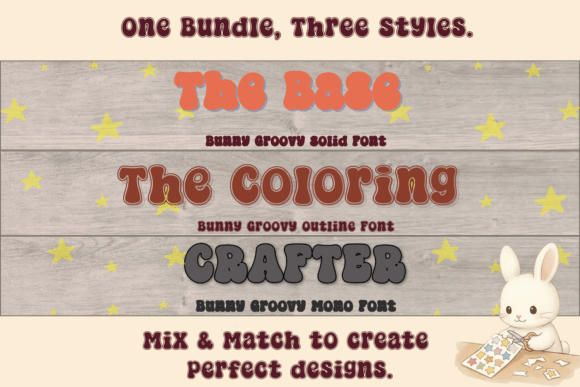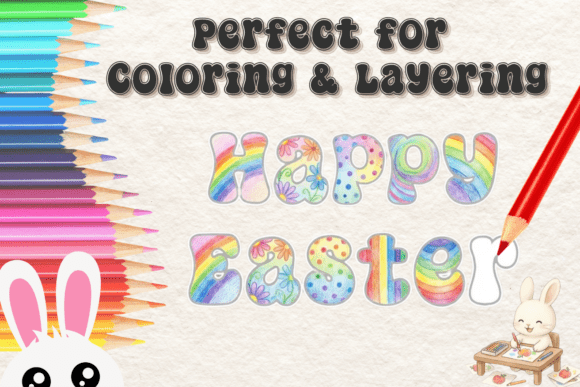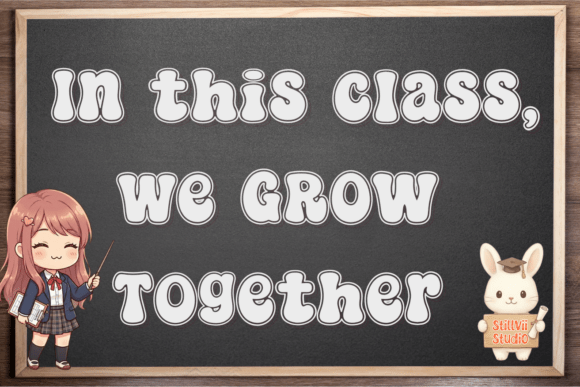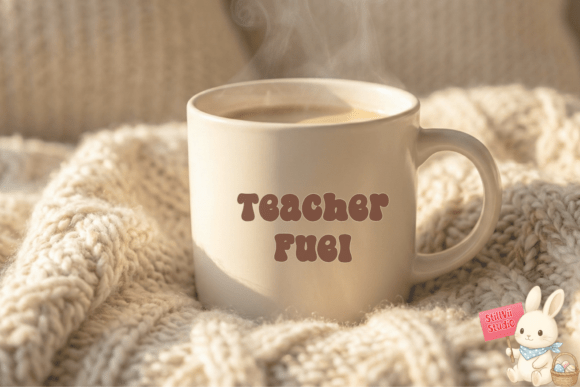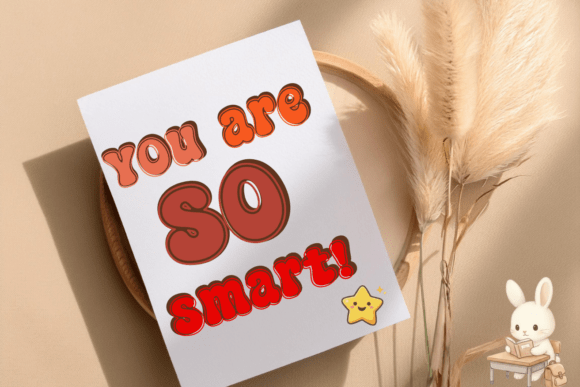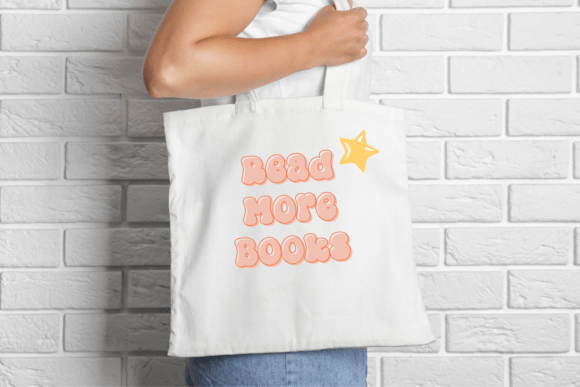
Get Ready to Groove with the Bunny Groovy Solid Trio Font
You know that moment when you’re browsing through fonts and suddenly, you stumble upon the perfect one? It’s like a creative spark hits you, and you can’t wait to start designing with it. That’s exactly what happened when I discovered the Bunny Outline Solid Trio Font – a playful, bold, and incredibly versatile typeface that’s perfect for adding a dash of retro fun to your next project.
This fantastic font bundle includes three unique styles: Solid, Outline, and Mono, each with its own charm and functionality. Whether you’re a teacher looking for a fun way to create worksheets, a crafter wanting to add some personality to your Cricut projects, or a designer seeking a premium look for your branding, the Bunny Outline Solid Trio Font is an absolute must-have. Its versatility and playfulness make it a valuable addition to any designer’s toolkit, and I’m excited to share its awesomeness with you.
Bunny Outline Solid Trio Font Key Features
- Unique Characteristics: The font features a distinctive outline solid trio design, combining bold lines, subtle textures, and a playful aesthetic.
- Font Styles: The font includes three styles: Regular, Bold, and Outline, allowing for versatile typography and creative expression.
Bunny Outline Solid Trio Font Review
Overall, I’m quite impressed with the Bunny Outline Solid Trio Font. It’s a cute and playful font that’s perfect for projects that require a whimsical touch. Here are some things that work well: ✨
- Unique and quirky design: The font’s outline style gives it a charming, hand-drawn feel that’s hard to resist.
- Good legibility: Despite its playful nature, the font is surprisingly easy to read, making it suitable for body text.
- Highly customizable: The font comes in a trio of weights (light, regular, and bold), allowing you to choose the perfect level of contrast for your project.
- Limited language support: The font only includes Latin characters, which may limit its use for projects that require non-Latin scripts.
- No extended character set: The font lacks support for special characters, symbols, and punctuation marks, which may require additional formatting.
Overall, I’d give the Bunny Outline Solid Trio Font a solid 4 out of 5 stars. It’s a great choice for projects that require a lighthearted, playful touch, but may not be suitable for more serious or technical applications.
Getting the Most Out of Bunny Outline Solid Trio Font
For best results, use Bunny Outline Solid Trio Font in designs where you want to add a playful, whimsical touch.
Experiment with different font sizes and colors to create visual interest and balance.
Bunny Outline Solid Trio Font is ideal for:
Children’s books and educational materials
Party invitations and decorations
Brand logos and marketing materials